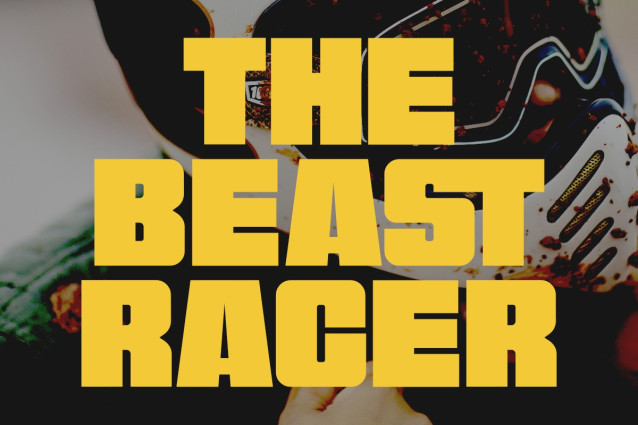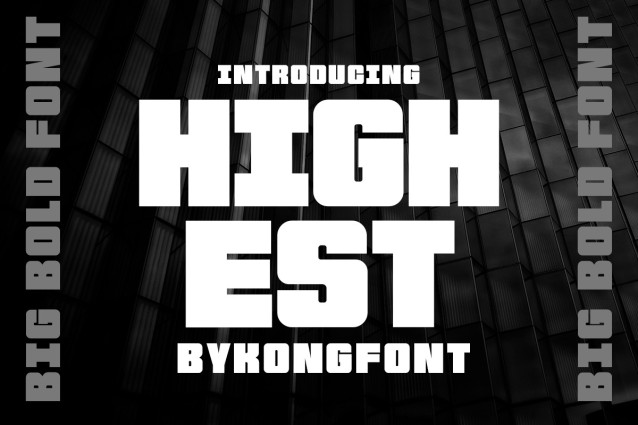
Highest Font
Highest Font A Modern Display Bold Font Display Font provides a variety of font types that have interesting characteristics. This time, Highest A Modern Display Bold Font is present as one of the best choices among other fonts. This font is a sans serif with bold letters. Several letters are written in sequence and look beautiful. Highest A Modern Display Bold Font is an easy-to-read font. This type of font does not apply to prints that are too large or too small because it will reduce readability. Must be used with the appropriate font size so that it can provide a maximum attractive impression. Highest A Modern Display Bold Font can be applied to several things, such as product branding. Can be used as a brand label, promotional poster, and shop signage. This font can be used digitally when you want to promote products on social media. In addition to products, this font can also be used to promote a service, such as photography. Highest A Modern Display Bold Font is one of the best fonts for quotes that contain motivation and encouragement. Beautiful letterforms will look great when combined with the right ornaments and colors. Our Display font collection is compatible with Figma Fonts, Canva Fonts, Freepik Fonts, and Adobe Fonts. They also work as Windows and Apple Fonts. For your social media needs, you can use and install fonts in our Script & Signature font collection to use as Instagram Fonts, Facebook Fonts, and Twitter Fonts.